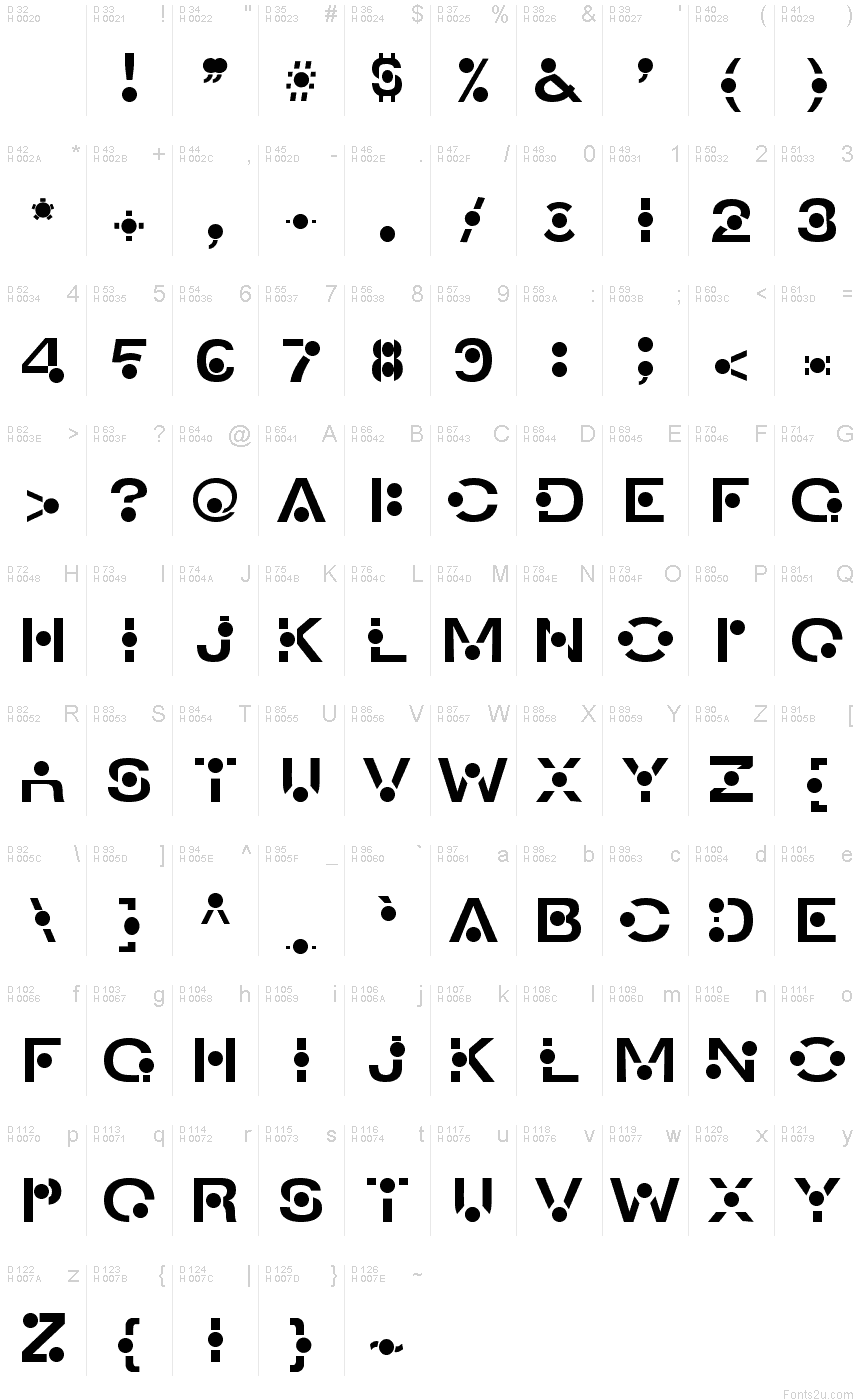
An Creon
An Creon font by An Creon Productions is a free futuristic display typeface that treats every letter like a tiny piece of machine architecture. Angular strokes snap into place beside bold circular dots, creating a rhythm that feels both mechanical and playful. The tight spacing and modular shapes give titles a crisp, engineered edge, as if they were stamped out of metal or lit up on a sci-fi control panel.
Using An Creon, headlines instantly read as tech-forward and a bit otherworldly, making this free font a natural fit for game logos, sci-fi movie posters, EDM or synthwave album art, tech event flyers, and bold app splash screens. It shines at large sizes where those circles and sharp cuts can really pop; pair it with a clean, neutral sans serif for body text to keep your layouts clear and readable.